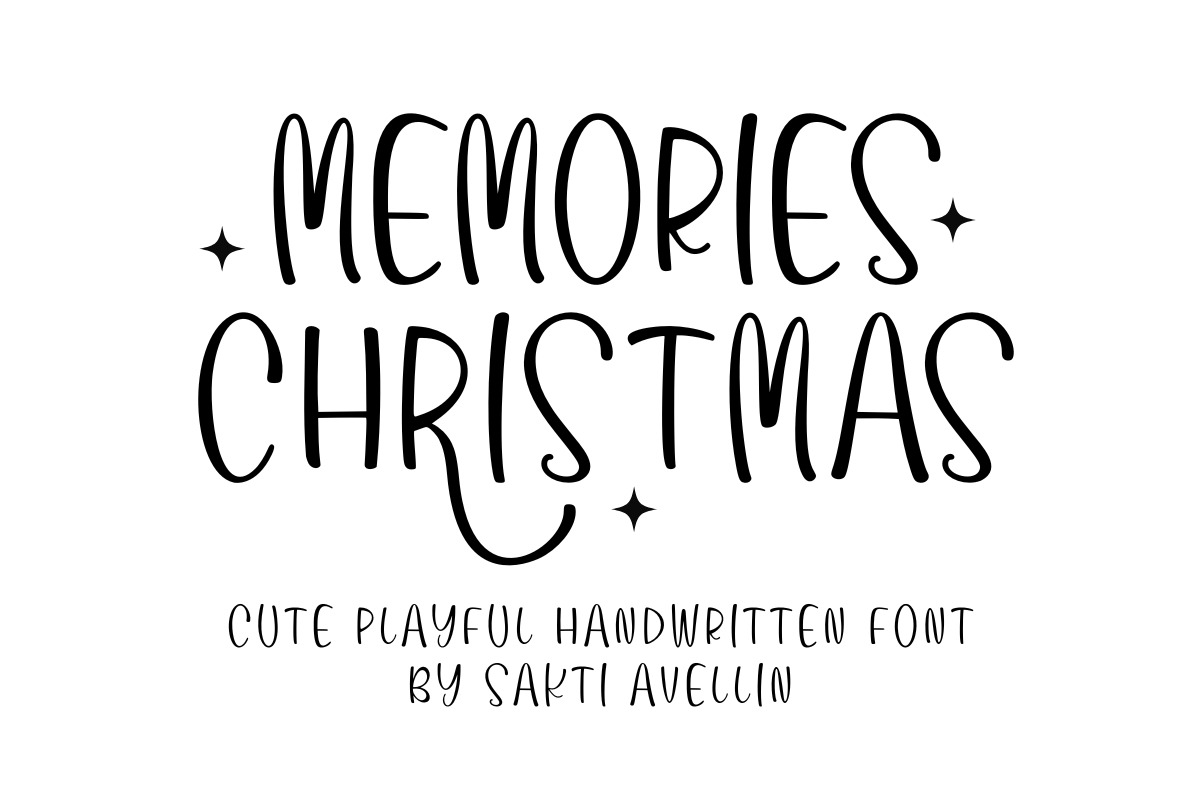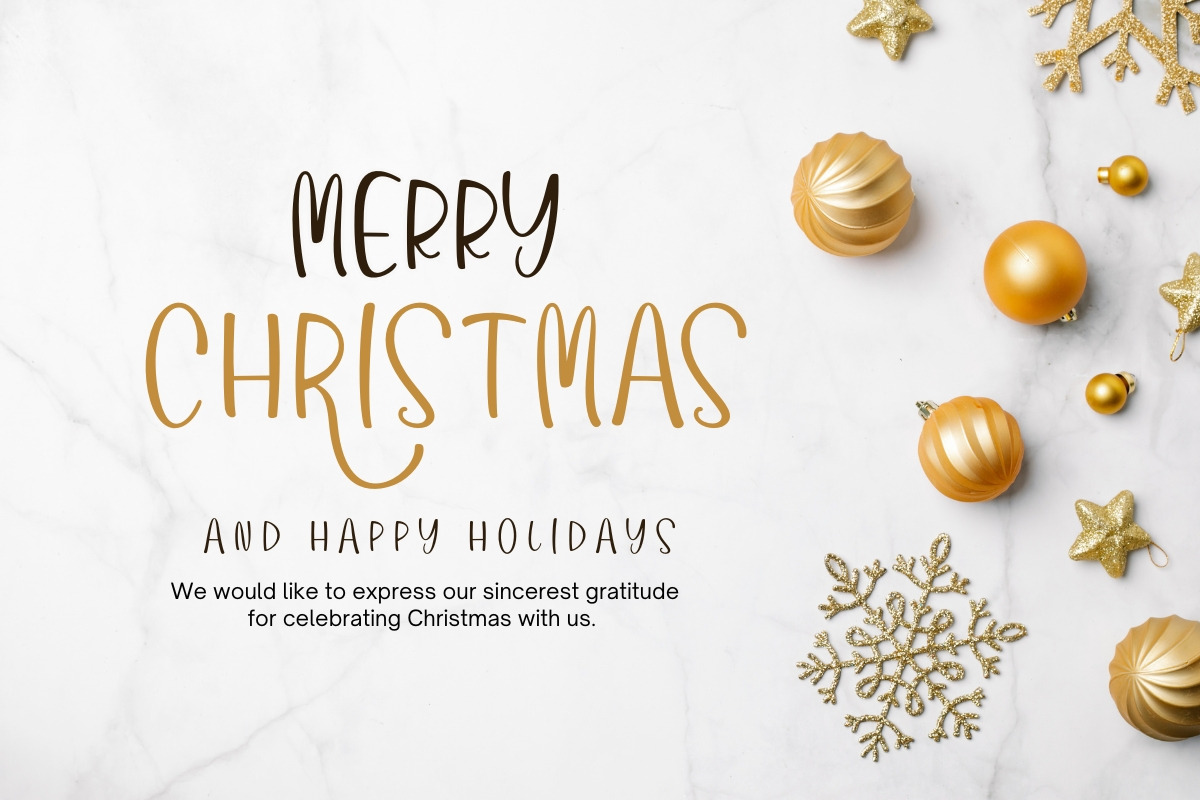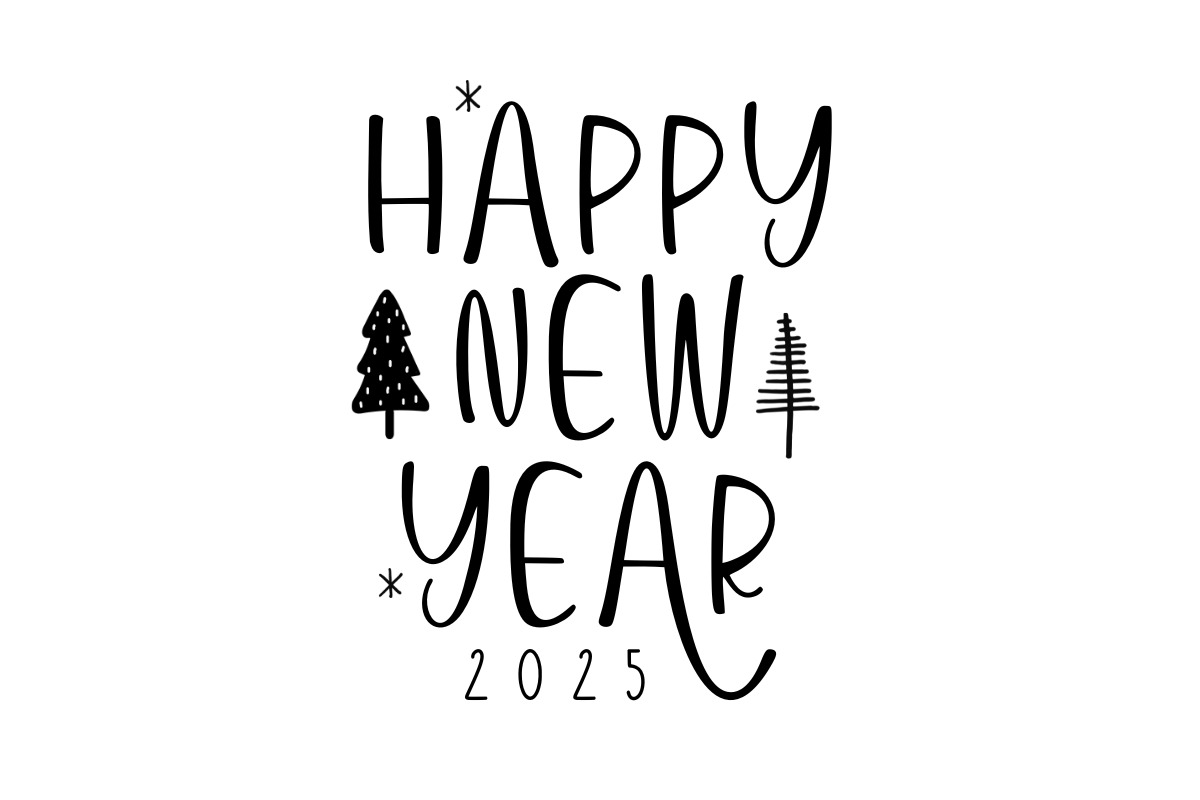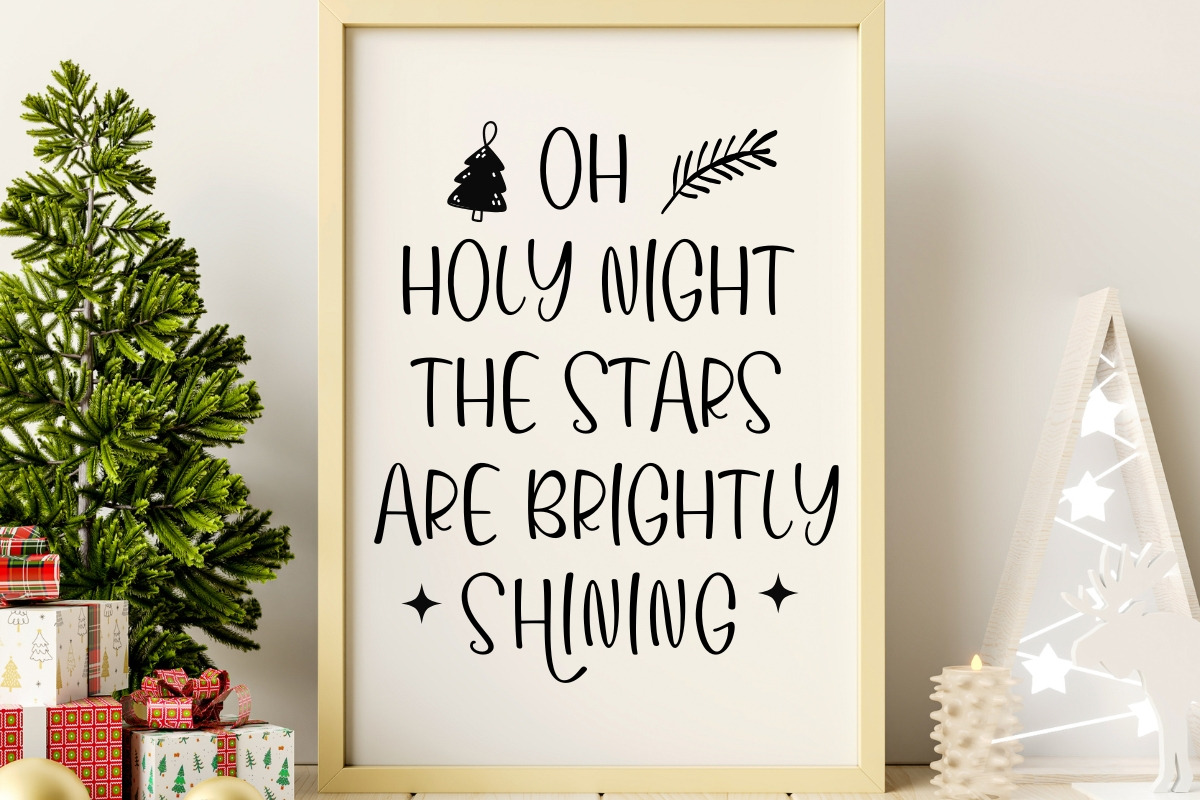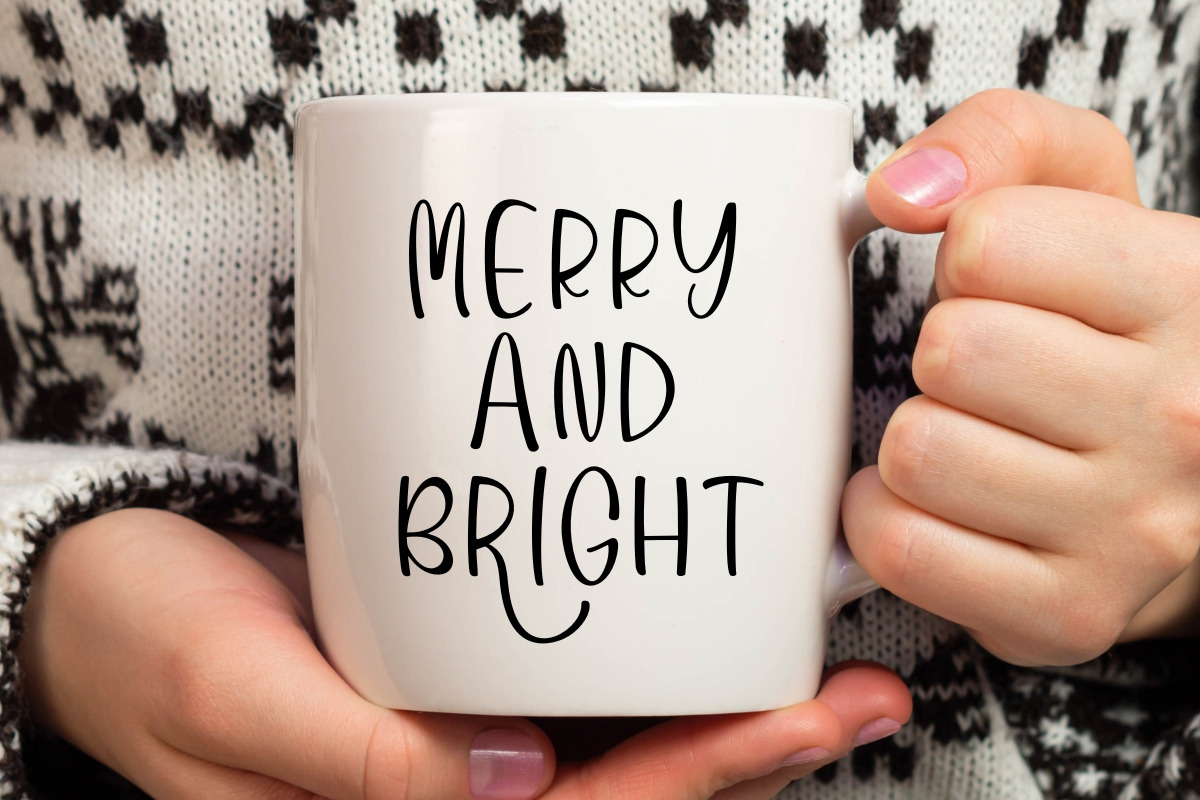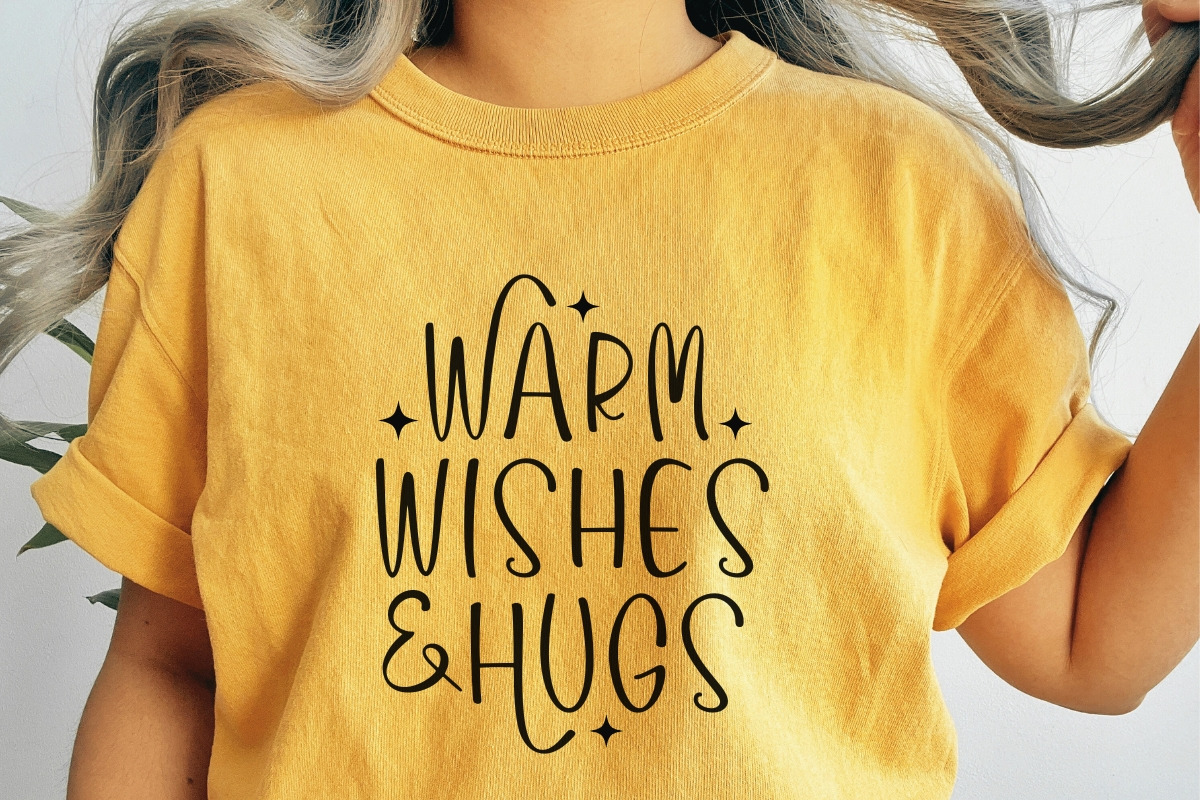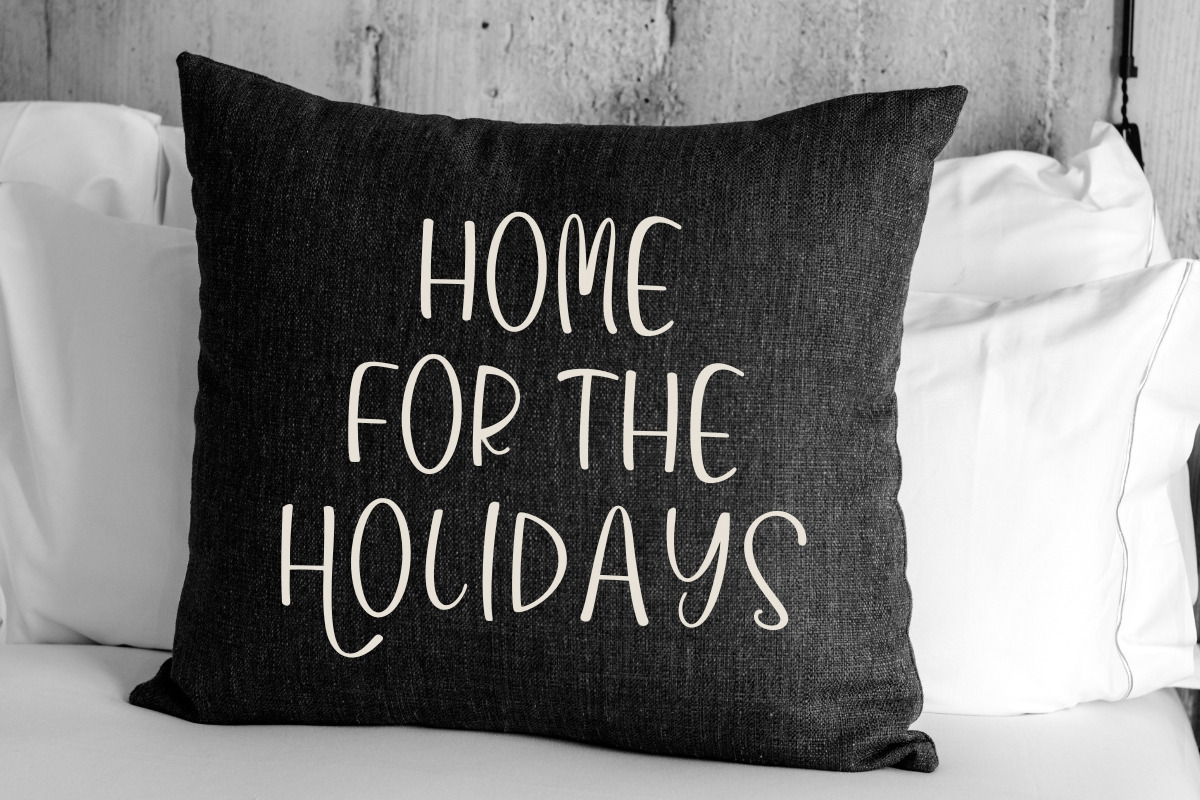
Memories Christmas - Playful Font
Memories Christmas is a charmingly cute playful handwritten font designed to capture the cozy, festive spirit of the holiday season. This bouncy script font is perfect for creating heartwarming Christmas cards, fun holiday invitations, festive Mug & T-shirt designs, winter branding, and cheerful social media graphics. Its stylish, rounded letters and delightful alternates ensure high readability and an immediate feeling of handmade warmth, making it an essential seasonal font for crafters and designers. Add a touch of joyful, personalized charm to all your winter-themed projects with this wonderful display font!